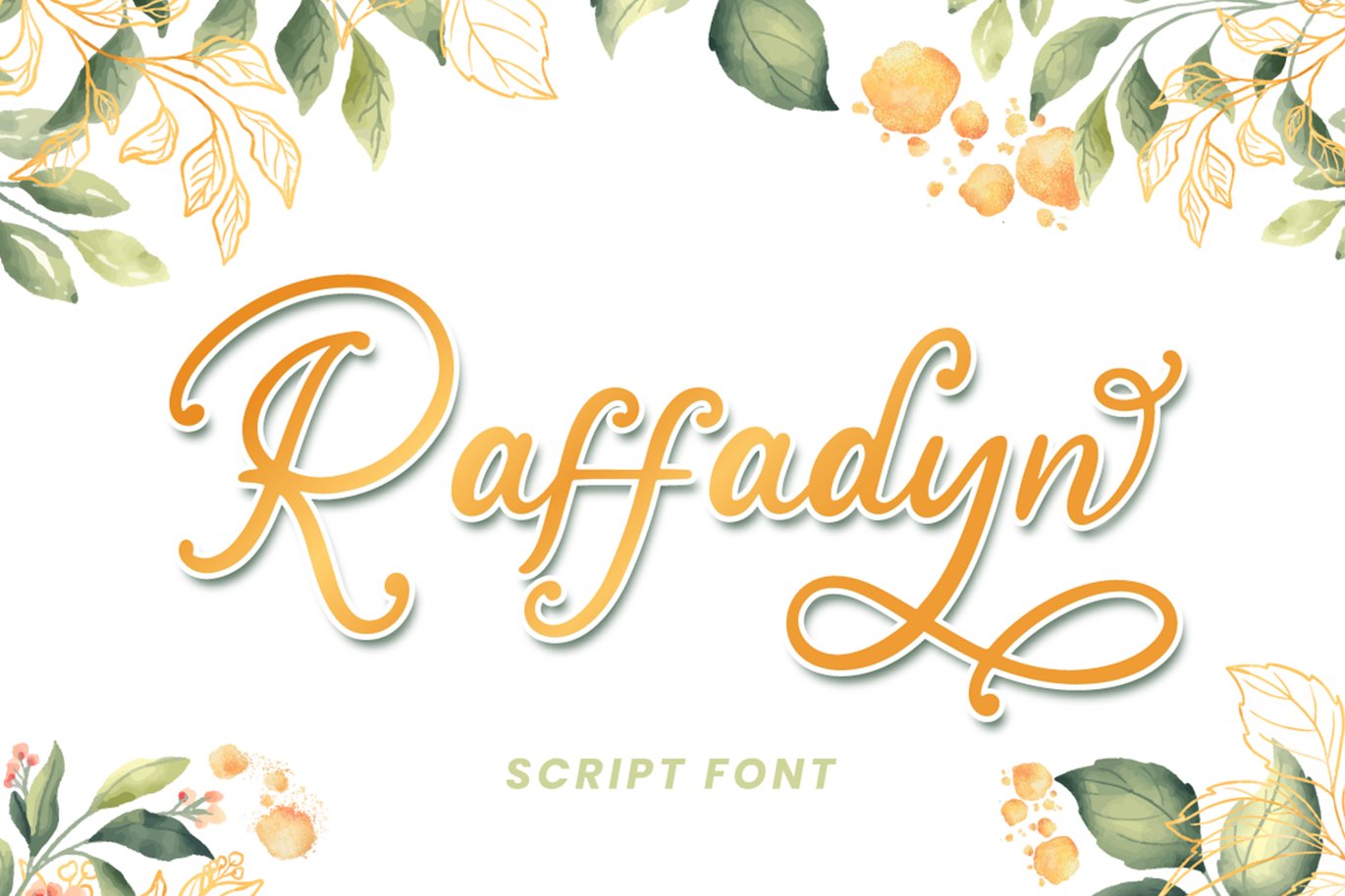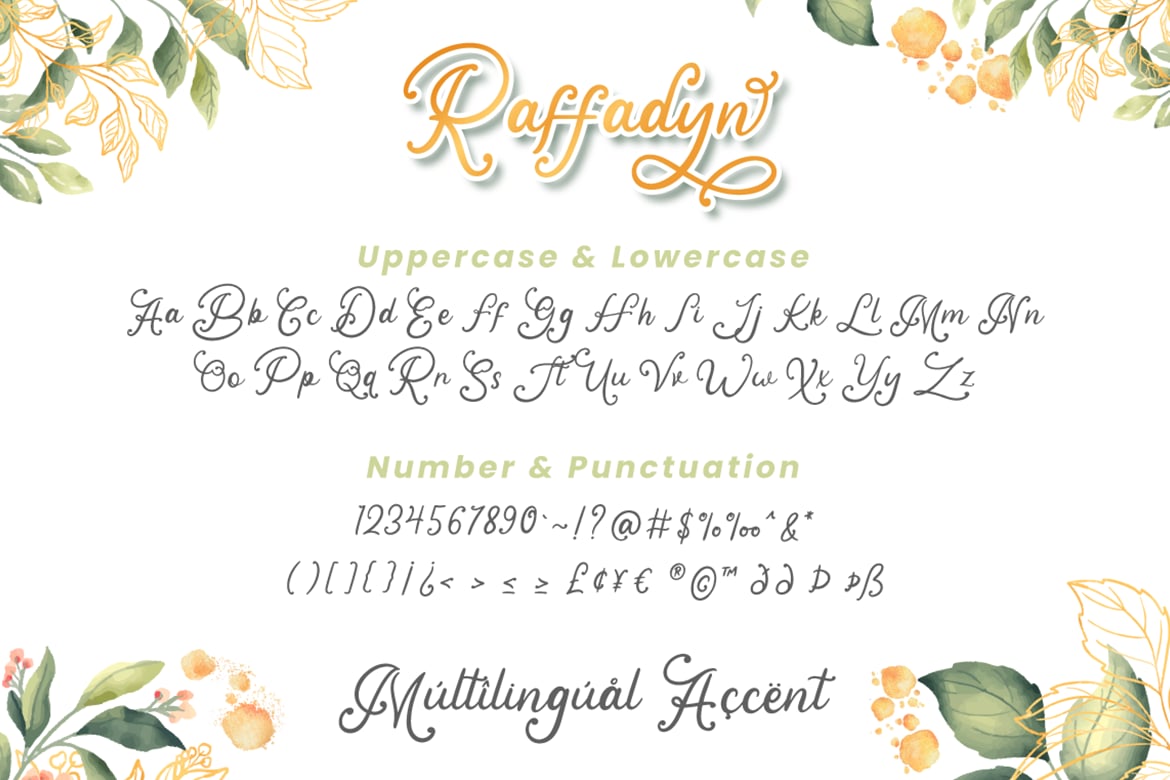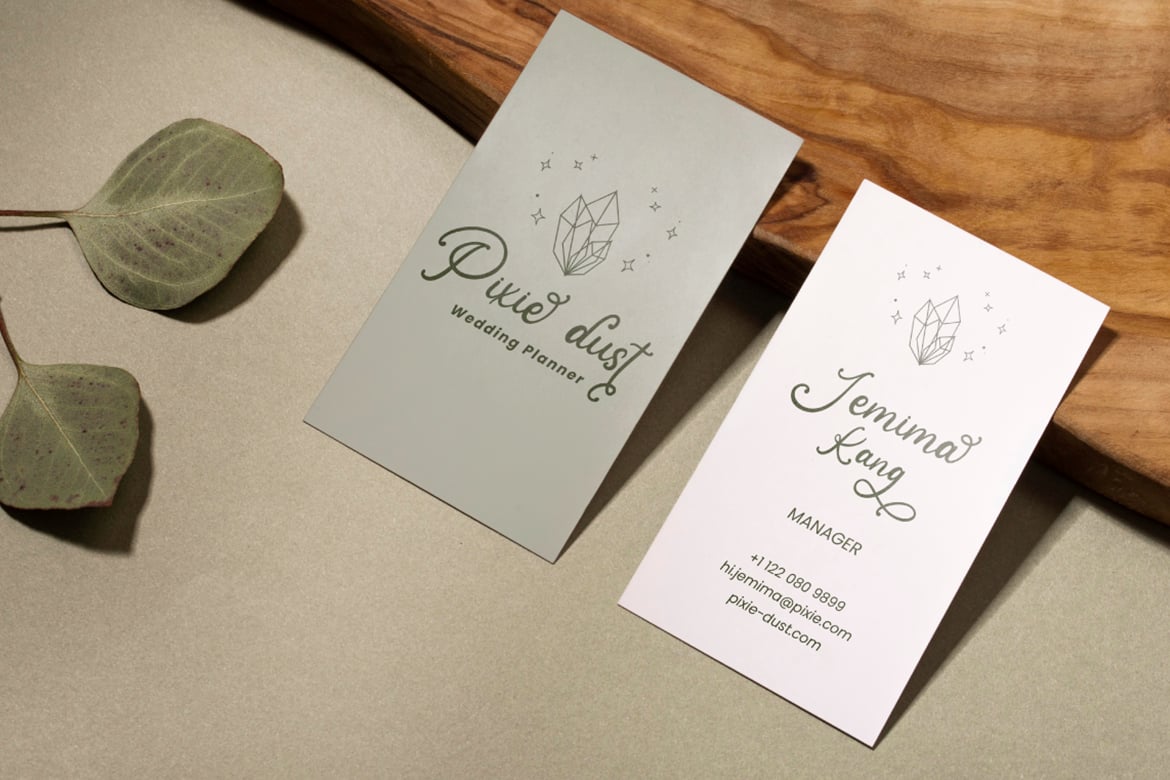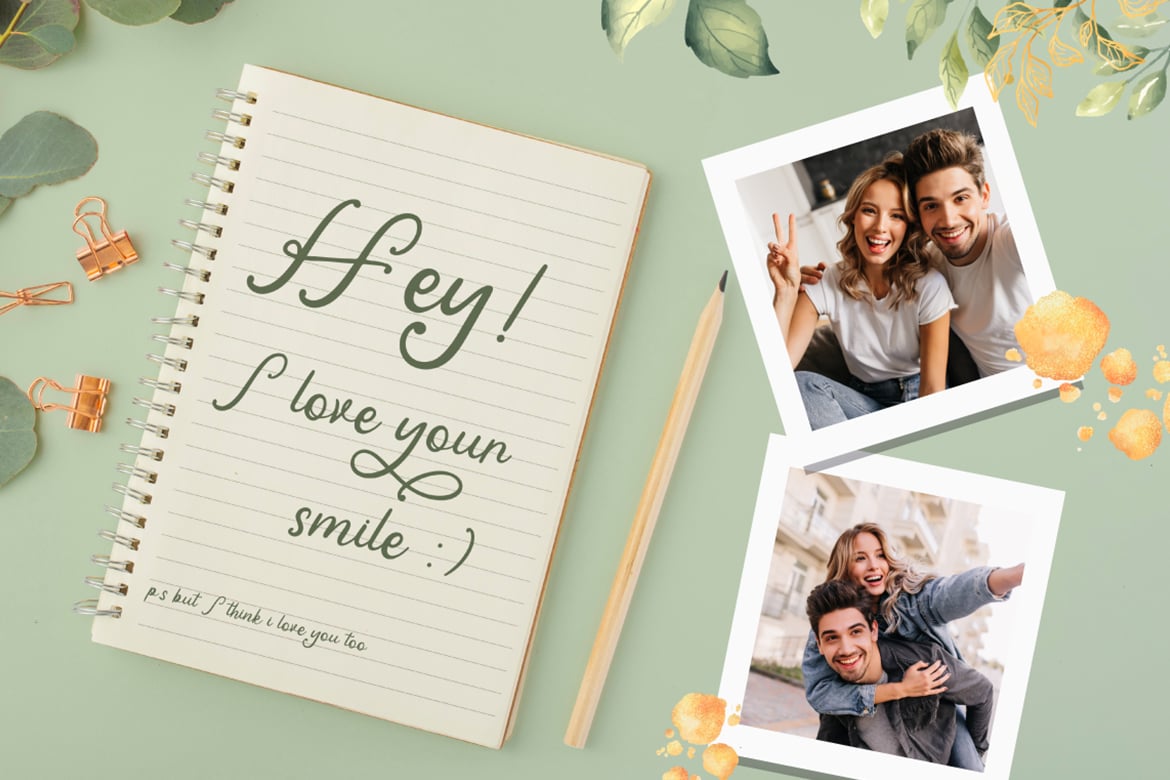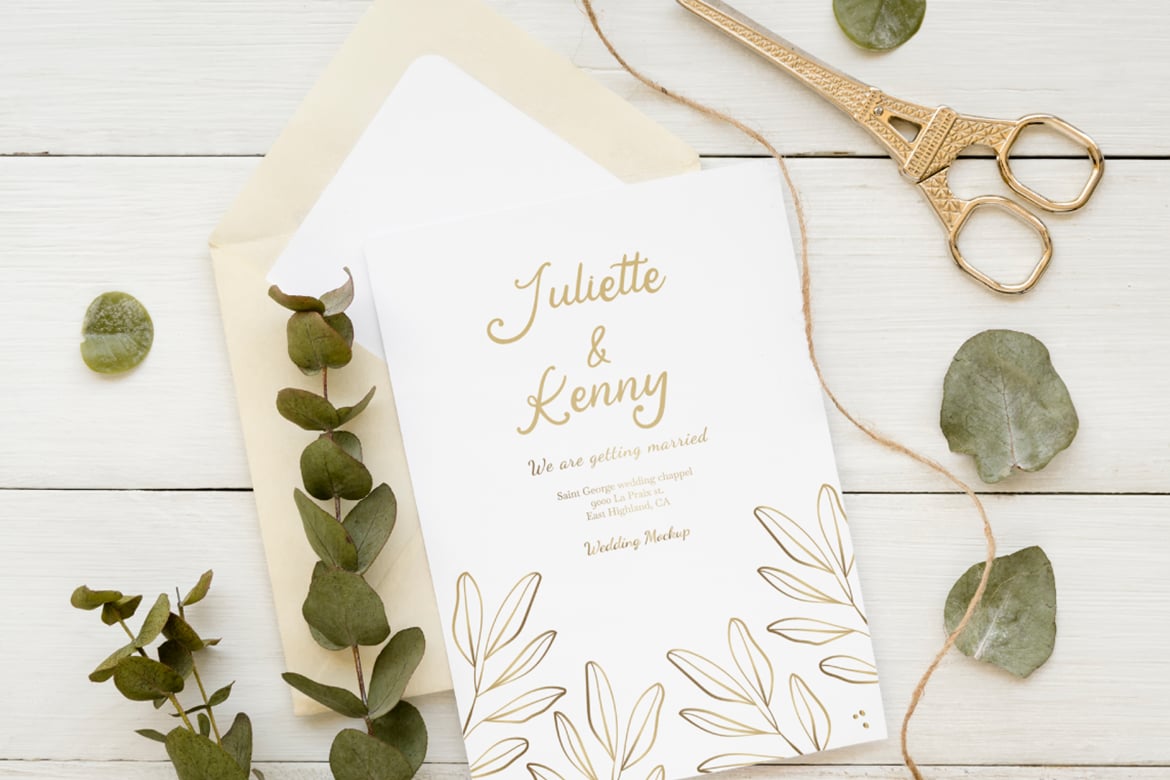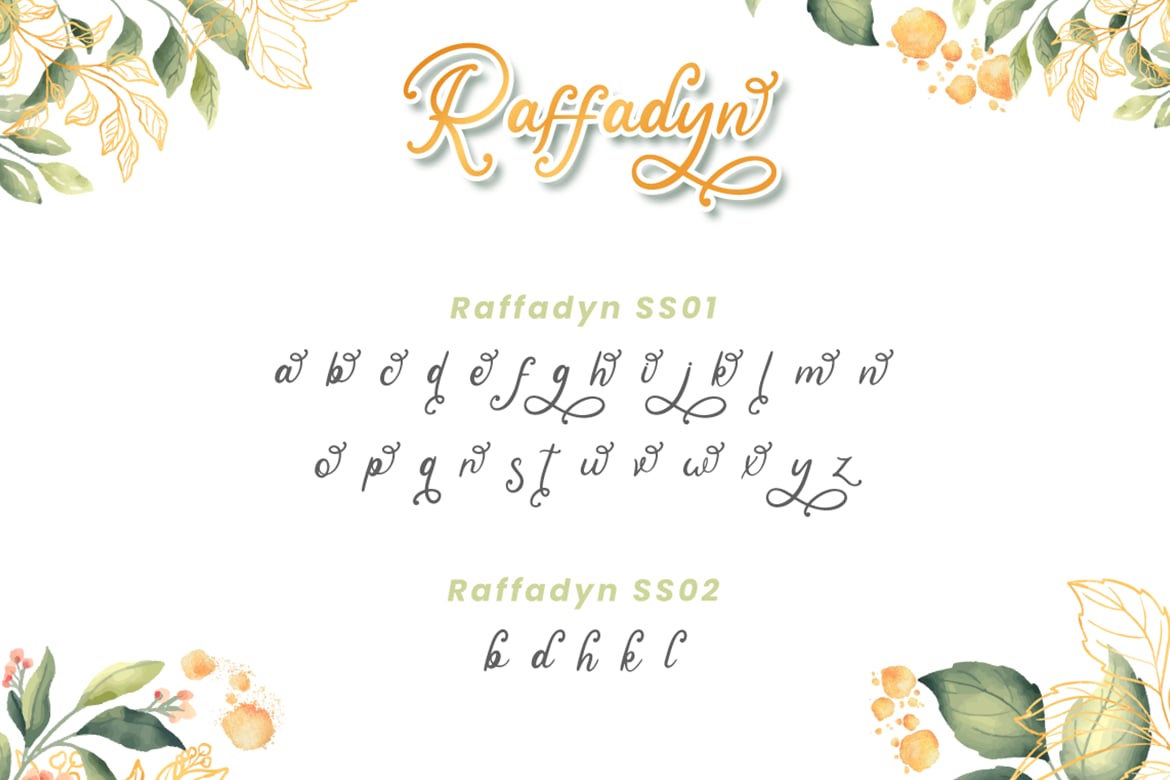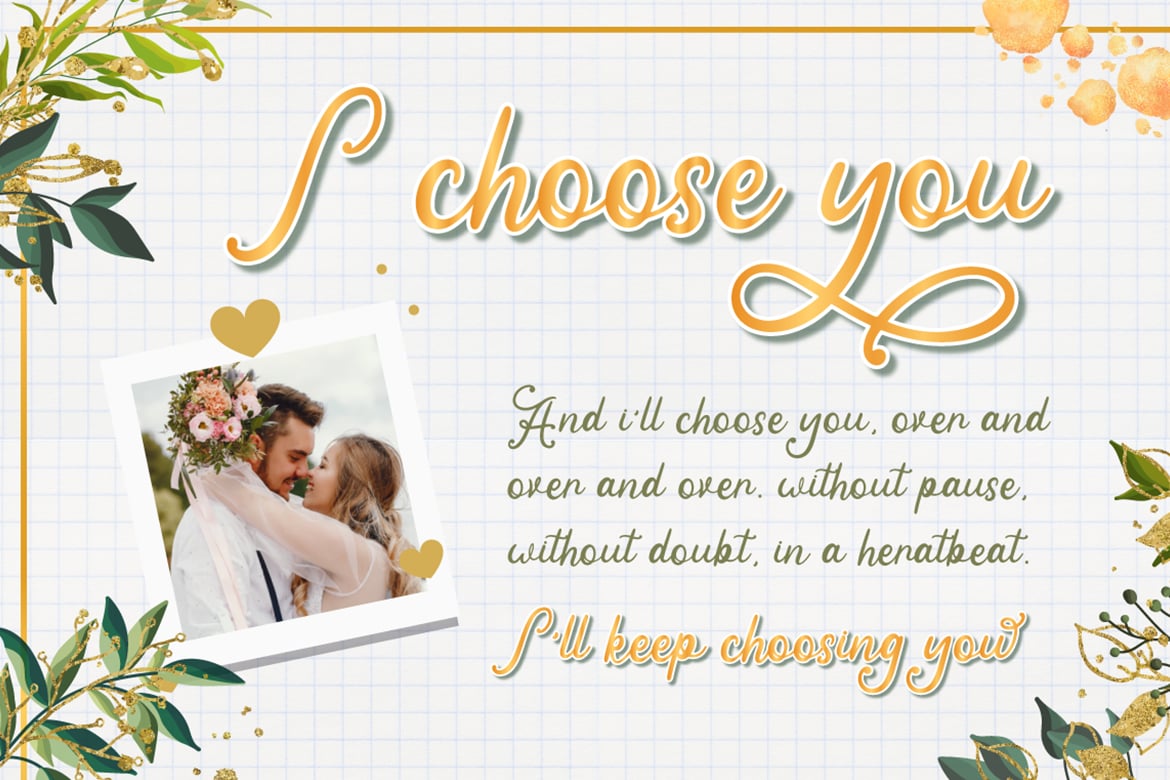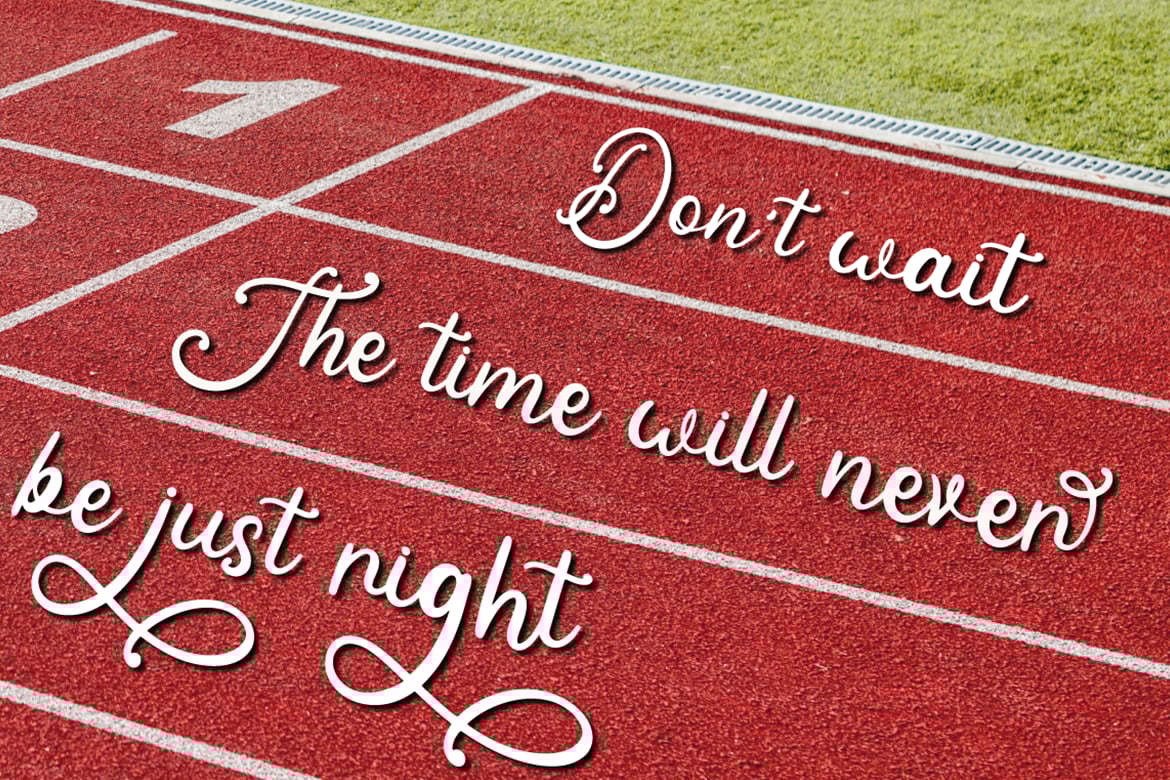
Raffadyn – Wedding Font
Raffadyn is a wedding font perfect for your wedding dream.
Combine Raffadyn with stylistic set to create amazing script font for wedding!
Fall in love with its incredibly versatile style and use it to create spectacular designs!
Raffadyn is perfect for branding, logo, invitation, quotes, apparel design, product packaging, merchandise,
game titles, cute style design, Book/Cover Title and more.
- Stylistic Set character